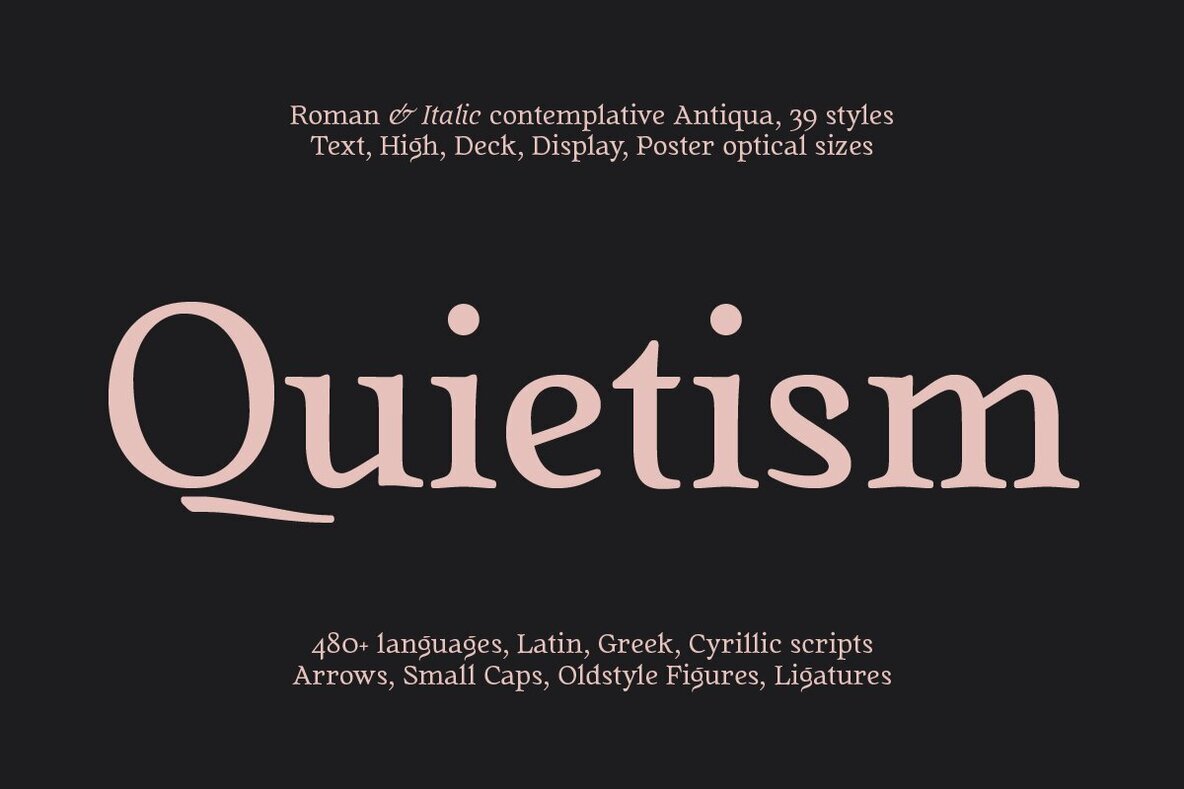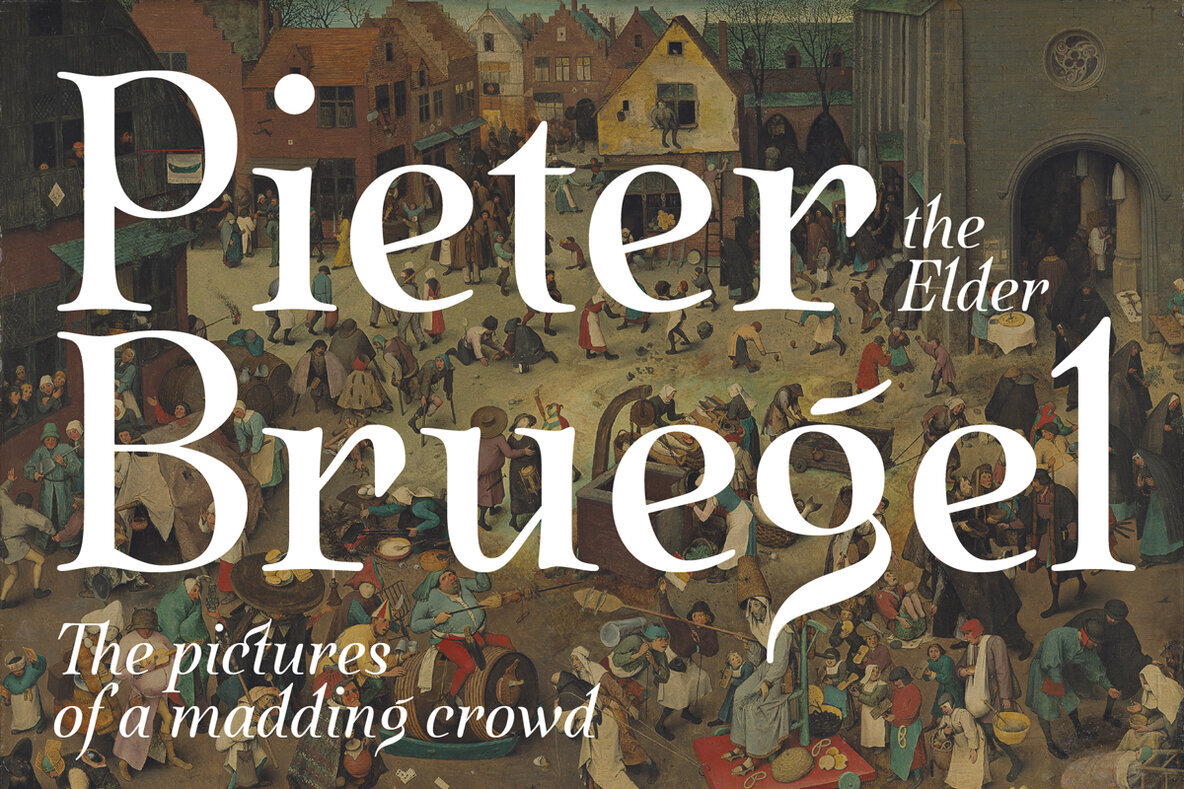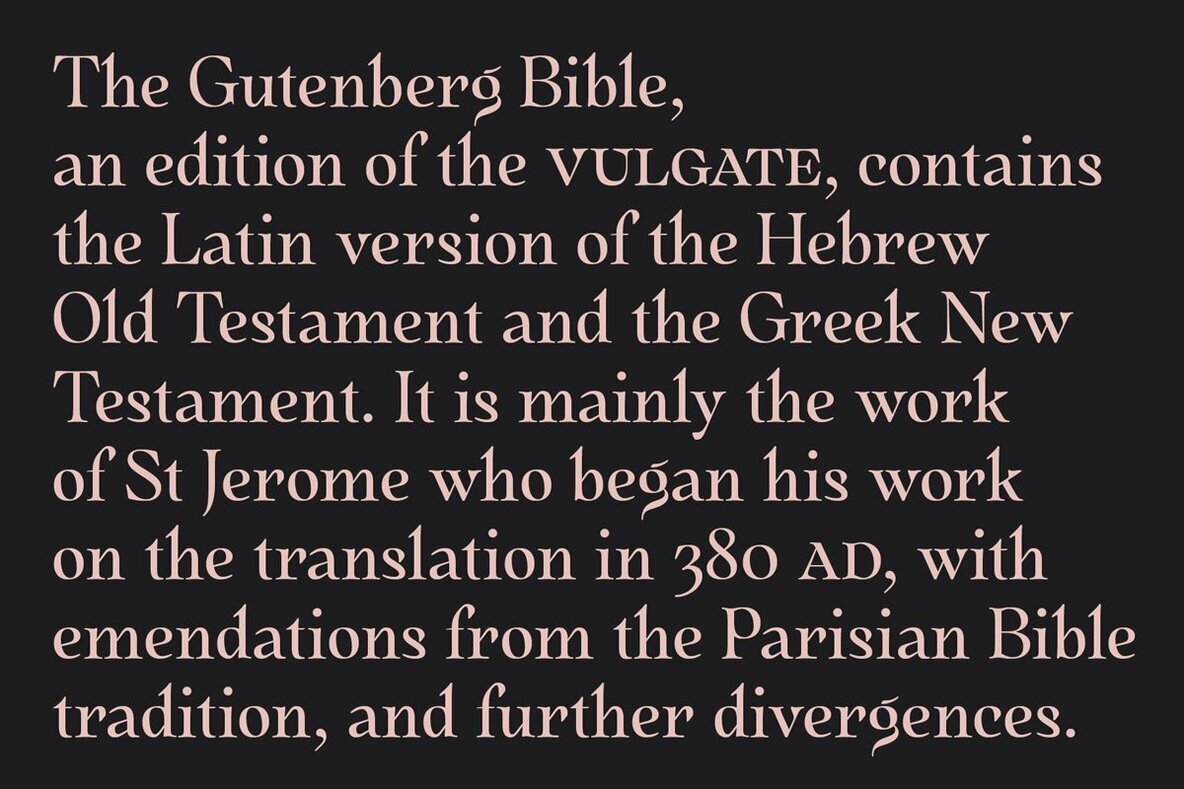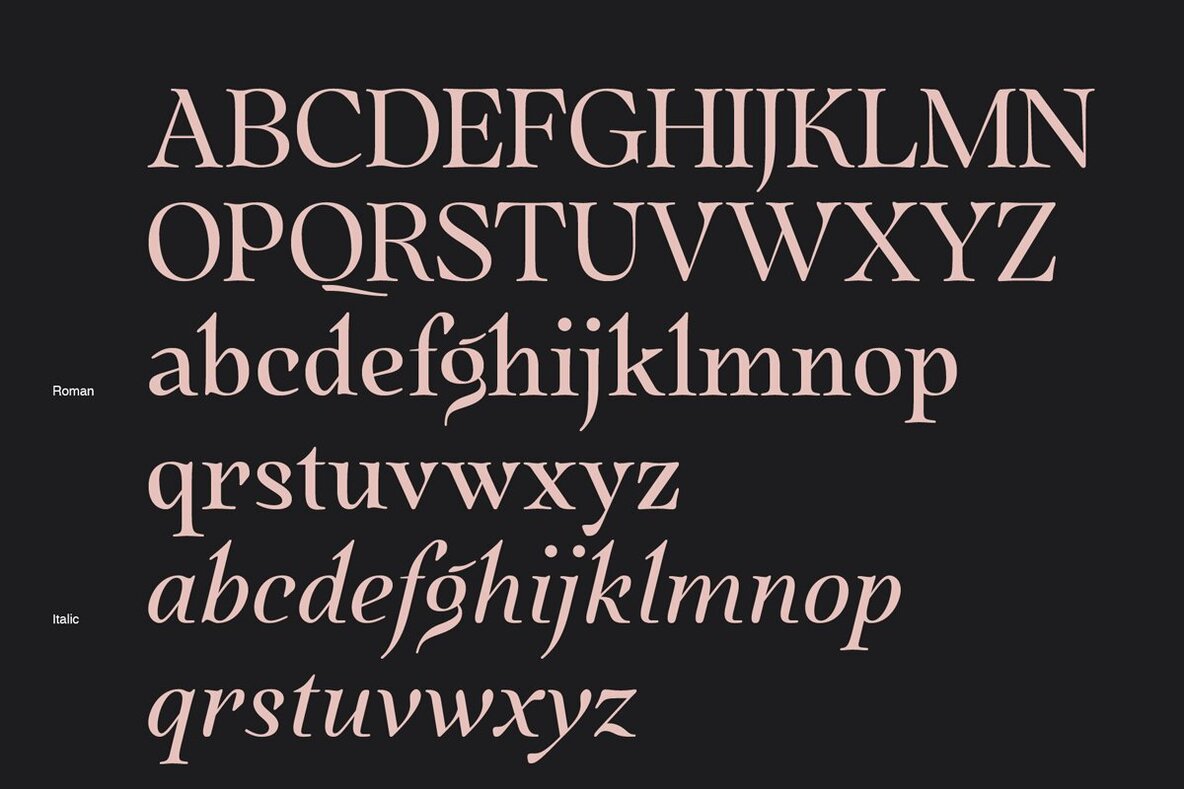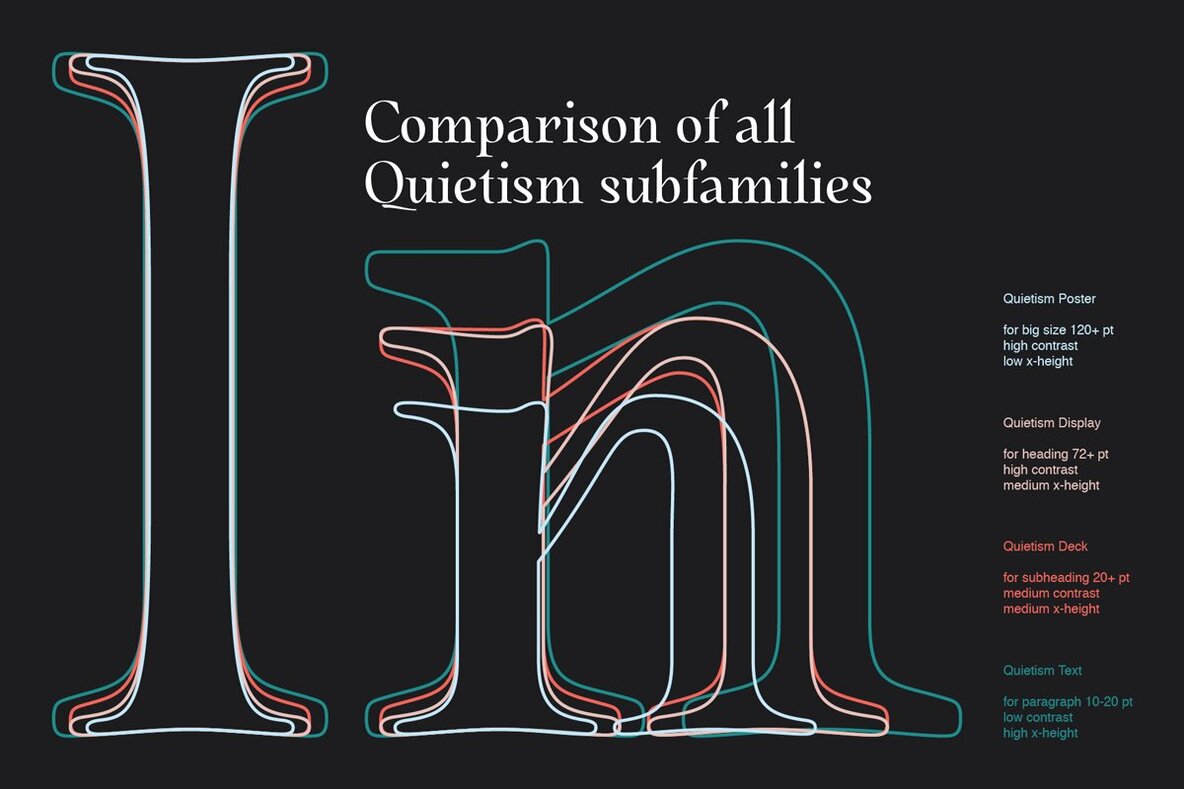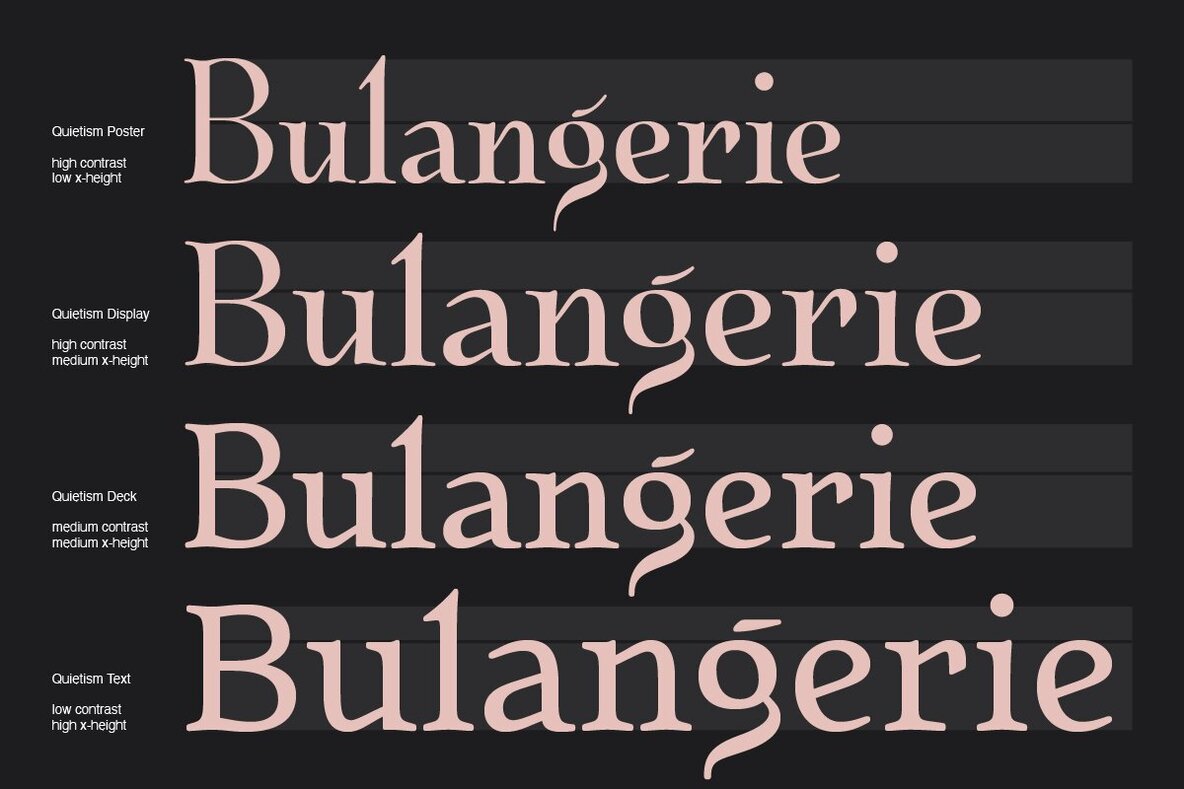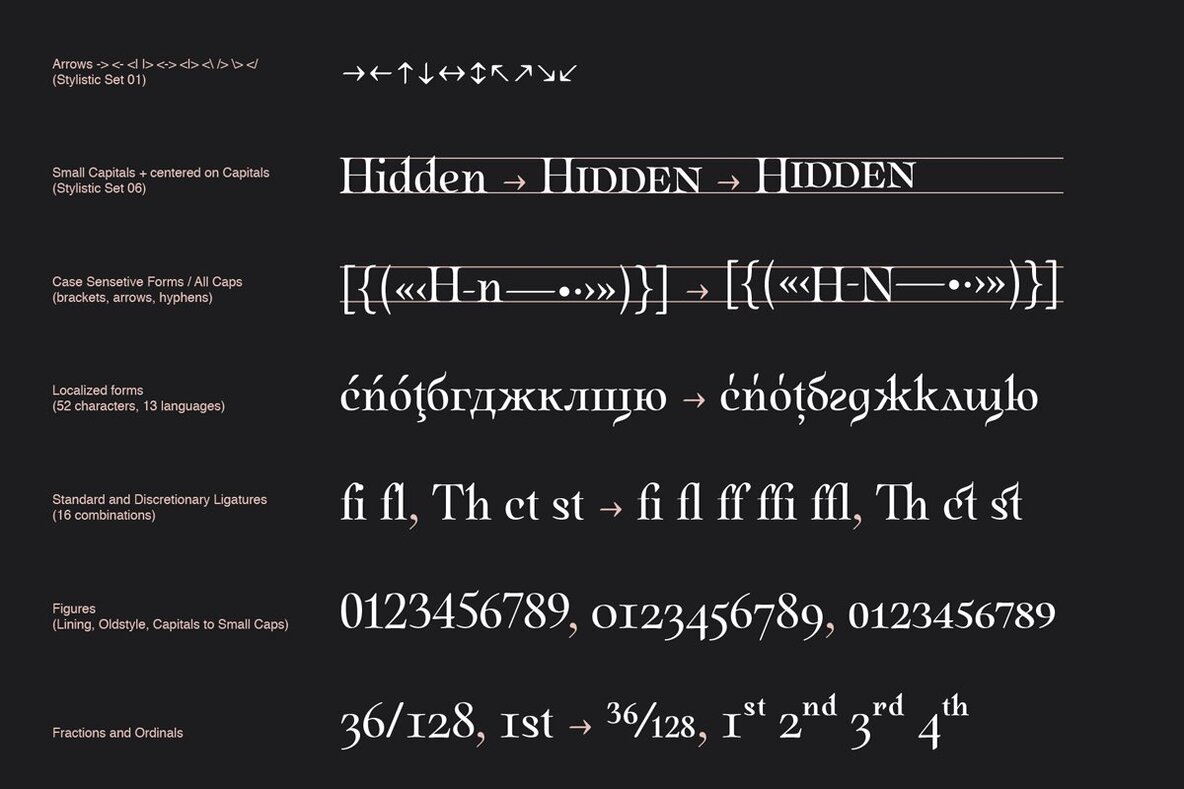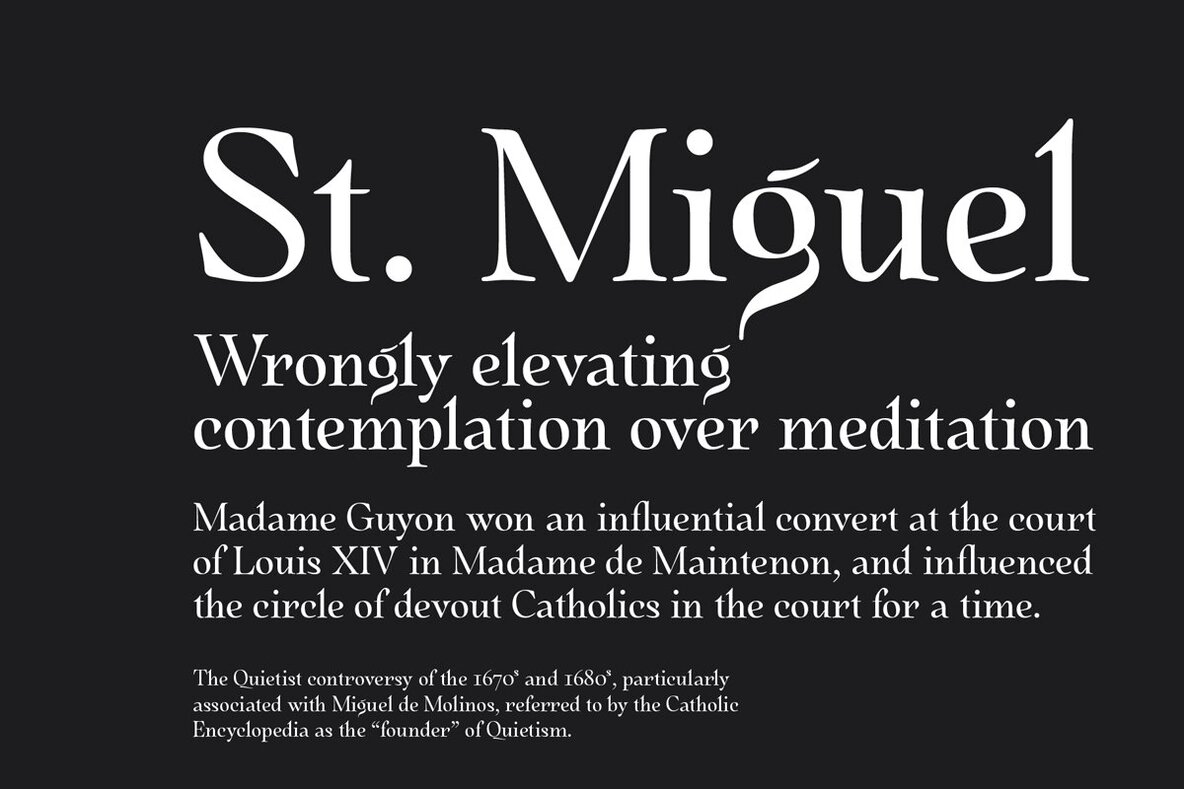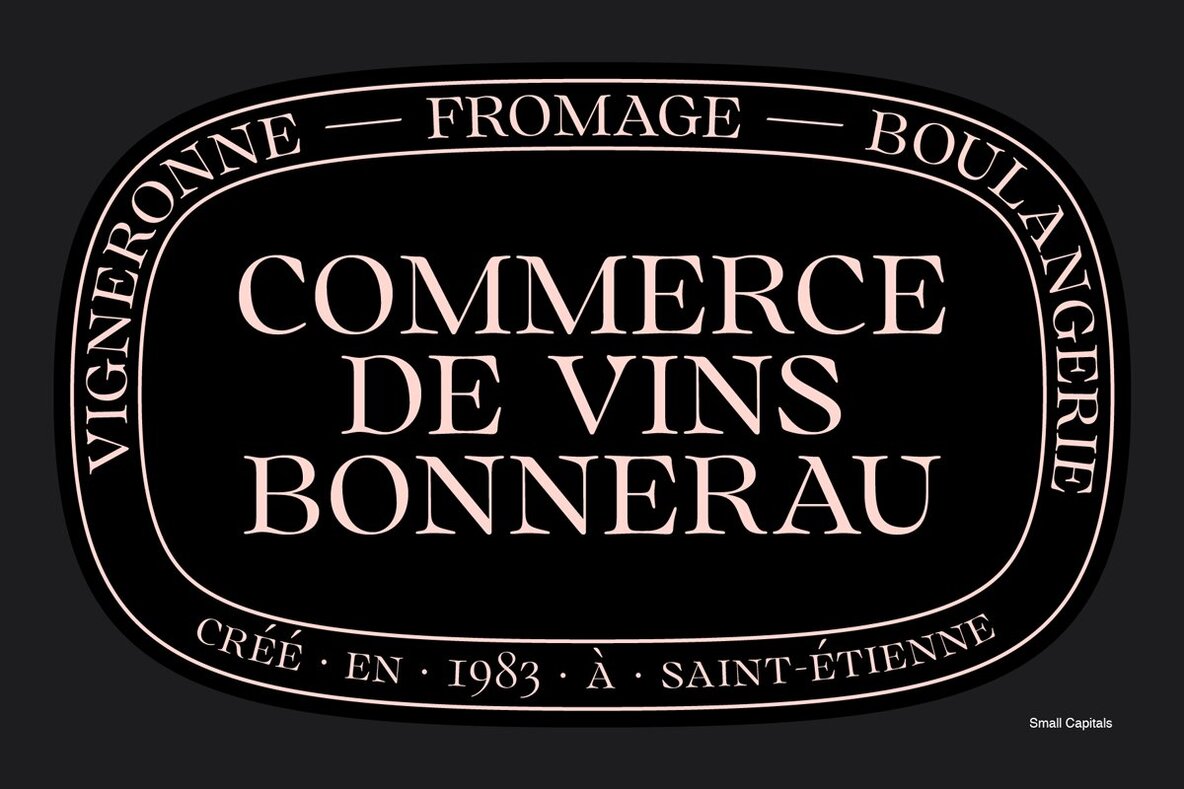
Quietism Font
Inspired by the philosophy of Quietism, this Antiqua typeface is defined by its smooth, contemplative design. Its soaring ascenders aim towards the sky, juxtaposed against quiet horizontal serifs to embody a balance of mental clarity and physical tranquility. Quietism includes four optical size subfamilies, varying in x-height and contrast, coupled with an oldstyle diagonal stress and figures by default. These features combine to craft a slightly dark texture adorned with smooth details.Quietism: A Serene Antiqua Typeface